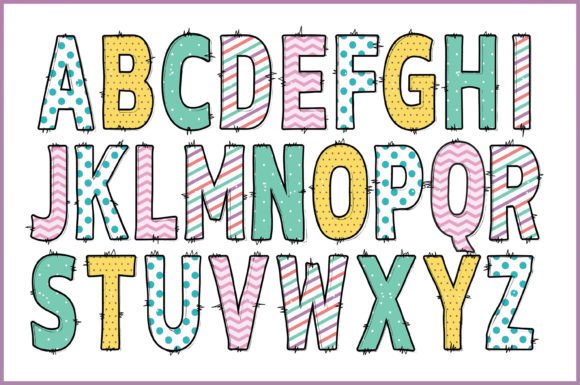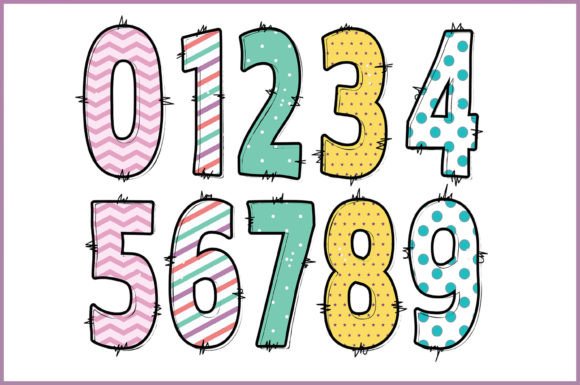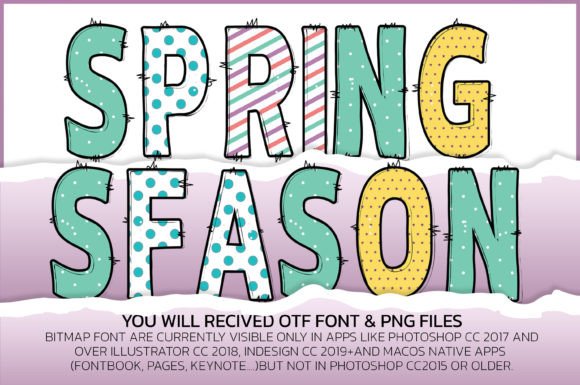
Easter Font: Add a Touch of Sweetness to Your Easter Creations
Easter is just around the corner, and with it comes the opportunity to get creative with your designs and crafts. If you’re looking for a font that embodies the sweet, chic, and bubbly spirit of Easter, look no further than the Easter Font. This delightful font is perfect for adding a touch of whimsy and fun to your Easter creations, and in this article, we’ll explore why it’s a must-have for designers and crafters alike.
What is Easter Font?
Easter Font is a digital font designed to capture the essence of Easter. It’s a colorful, playful, and highly legible font that’s perfect for use in a variety of creative projects, from Easter cards and invitations to DIY crafts and decorations. The font features a unique blend of bold and delicate lines, giving it a distinctive and eye-catching appearance.
Key Features of Easter Font
- Sweet and Chic Design: Easter Font boasts a sweet and chic design that’s perfect for creating Easter-themed projects that are both stylish and fun.
- Bubbly and Playful: The font’s bubbly and playful appearance adds a touch of whimsy to any design, making it perfect for Easter creations that need a bit of personality.
- Highly Legible: Despite its playful design, Easter Font is highly legible, making it easy to use in a variety of projects, from small Easter cards to larger decorations.
- Colorful: Easter Font comes in a range of colors, allowing you to add a pop of color to your Easter creations and make them truly stand out.
Why Use Easter Font?
So why should you use Easter Font in your creative projects? Here are just a few reasons:
- Adds a Touch of Whimsy: Easter Font adds a touch of whimsy and fun to any design, making it perfect for Easter creations that need a bit of personality.
- Perfect for Easter-themed Projects: As its name suggests, Easter Font is specifically designed for Easter-themed projects, making it a must-have for designers and crafters who want to create authentic and engaging Easter content.
- Easy to Use: Easter Font is easy to use and can be incorporated into a variety of creative projects, from digital designs to handmade crafts.
- Versatile: Easter Font can be used in a range of creative projects, from Easter cards and invitations to DIY crafts and decorations.
How to Use Easter Font
Using Easter Font in your creative projects is easy. Here are a few tips to get you started:
- Pair with Other Easter-themed Elements: Pair Easter Font with other Easter-themed elements, such as Easter eggs, bunnies, and flowers, to create a cohesive and engaging design.
- Experiment with Colors: Experiment with different colors to find the perfect combination for your Easter creation.
- Use in Digital Designs: Use Easter Font in digital designs, such as Easter cards and invitations, to add a touch of whimsy and fun.
- Use in Handmade Crafts: Use Easter Font in handmade crafts, such as Easter decorations and DIY projects, to add a personal touch.
Easter Font is a sweet, chic, and bubbly color font that’s perfect for adding a touch of whimsy and fun to your Easter creations. With its highly legible design, colorful appearance, and versatility, it’s a must-have for designers and crafters alike. Whether you’re creating Easter cards, invitations, DIY crafts, or decorations, Easter Font is the perfect choice. So why not give it a try and see how easily your Easter creations come to life?
Get Creative with Easter Font
Ready to get creative with Easter Font? Here are a few ideas to get you started:
- Create Easter Cards: Use Easter Font to create Easter cards that are both stylish and fun.
- Design Easter Invitations: Use Easter Font to design Easter invitations that set the tone for your Easter celebration.
- Make Easter Decorations: Use Easter Font to make Easter decorations, such as Easter egg decorations and bunny-themed signs.
- Create Easter Crafts: Use Easter Font to create Easter crafts, such as Easter-themed DIY projects and handmade gifts.